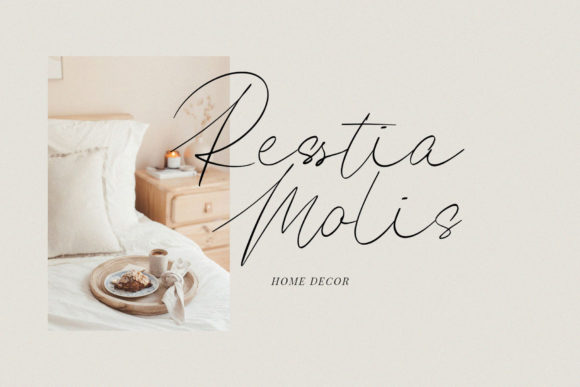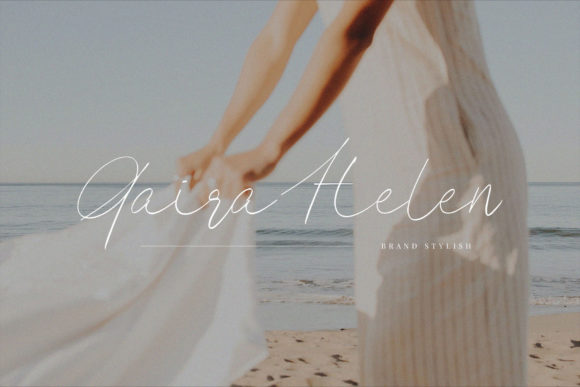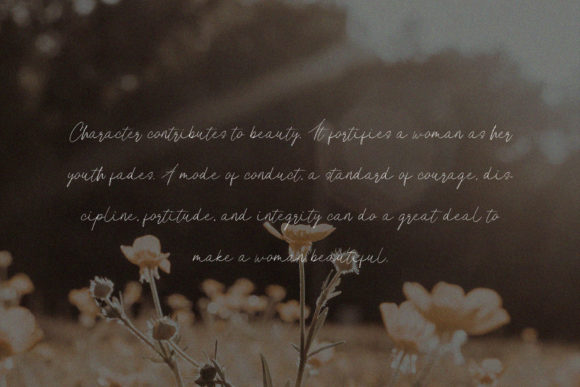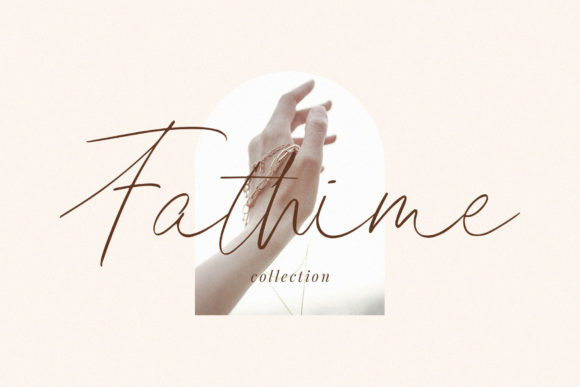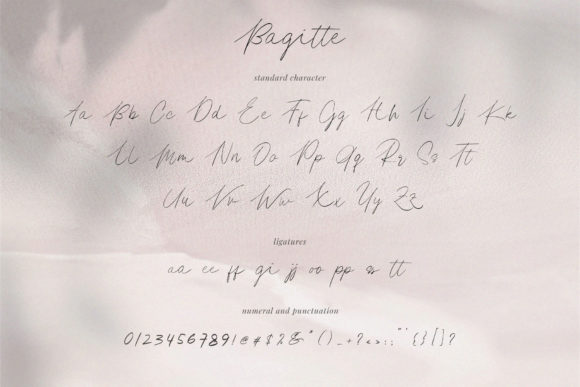
Discover the Beauty of Bagitte Font: Elevate Your Designs with a Touch of Femininity
In the world of design, typography plays a crucial role in conveying the message and aesthetic of a project. Among the numerous fonts available, Bagitte stands out as a stunning feminine handwritten font that can add a touch of elegance and sophistication to your work. In this article, we’ll explore the features and benefits of Bagitte font, and how it can be used to perfect your design.
What is Bagitte Font?
Bagitte is a beautiful, feminine handwritten font designed to bring a touch of warmth and personality to your designs. Its elegant and flowing strokes make it perfect for a wide range of creative projects, from branding and advertising to packaging and digital media. With its unique and distinctive style, Bagitte font is sure to make your work stand out from the crowd.
Key Features of Bagitte Font
- Feminine and Elegant: Bagitte font boasts a distinctly feminine and elegant style, making it ideal for projects that require a touch of sophistication.
- Handwritten Style: The font’s handwritten style gives it a personal and approachable feel, perfect for designs that aim to connect with the audience on a more intimate level.
- Versatile: Bagitte font is highly versatile and can be used for a wide variety of projects, including logos, branding, packaging, posters, and digital media.
- Easy to Read: Despite its elegant and cursive nature, Bagitte font remains highly legible, making it suitable for both headings and body text.
Benefits of Using Bagitte Font
Using Bagitte font in your designs comes with numerous benefits. Here are a few:
- Unique and Memorable: With Bagitte font, you can create unique and memorable designs that leave a lasting impression on your audience.
- Time-Saving: The font’s versatility and elegance save you time and effort in finding the perfect typography for your project.
- Easy to Pair: Bagitte font pairs well with a variety of other fonts, making it easy to create harmonious and balanced designs.
Creative Projects Perfect for Bagitte Font
Bagitte font is suitable for a wide range of creative projects, including:
- Branding and Logos: Create stunning logos and branding materials that exude elegance and sophistication.
- Wedding and Event Planning: Add a touch of romance and whimsy to your wedding and event planning designs.
- Packaging Design: Create eye-catching packaging designs that stand out on store shelves.
- Digital Media: Use Bagitte font in your digital media, such as social media graphics, blog posts, and email newsletters.